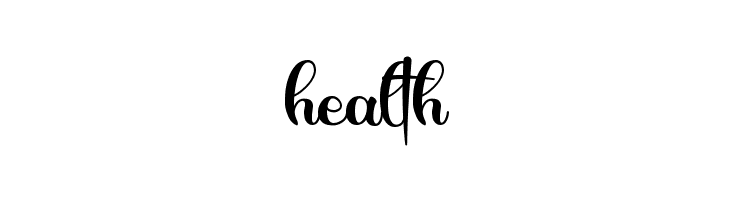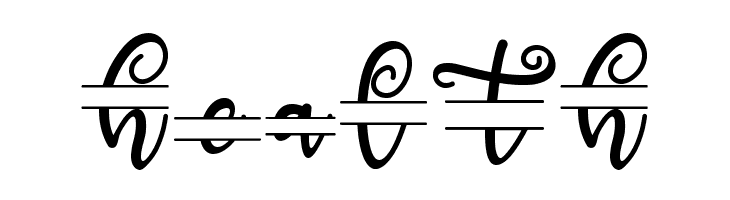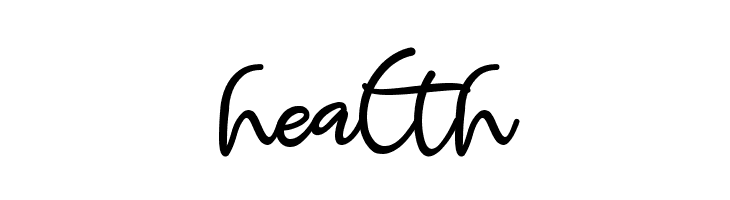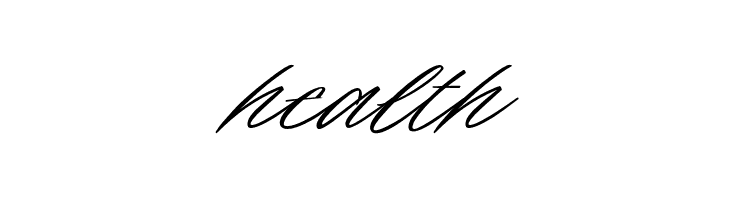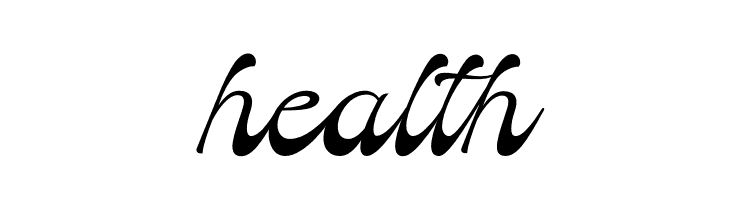
A playful, whimsical script font with elegant loops and a hand-drawn style.
An elegant, decorative font with intricate swirls and flourishes.
A lively, expressive script font with elegant, flowing strokes.
A lively and dynamic script font with fluid, continuous strokes.
A lively, cursive font with dynamic strokes and elegant flow.
A playful, handwritten font with a casual and energetic style.
A sophisticated script font with fluid, cursive strokes and elegant flourishes.
A flowing, elegant script font with smooth, rounded edges and consistent stroke width.
A bold, flowing script font with elegant, cursive letterforms.
A bold, decorative font with elegant swashes and striking serifs.